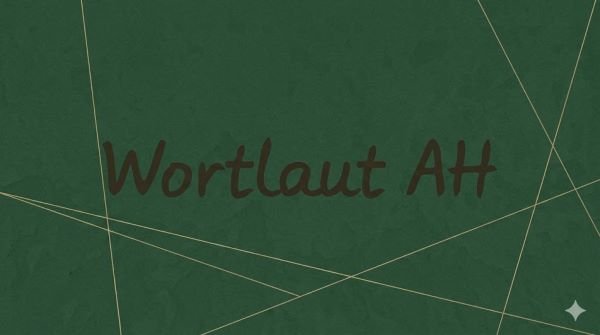
Wortlaut AH Font by Fontgrube AH is the rare handwritten font that actually behaves well in extended use. Modest, precise, and free of calligraphic excess, it’s a handwriting font with genuine discipline — the kind that works convincingly in diary-style layouts, annotated editorial spreads, or printed novels needing an authentic personal touch.
Three weights — Regular, Medium, and Bold — give it real versatility across a range of applications. Wide language support spanning 92 scripts makes it a practical choice for international projects. Fully free for personal and commercial use.